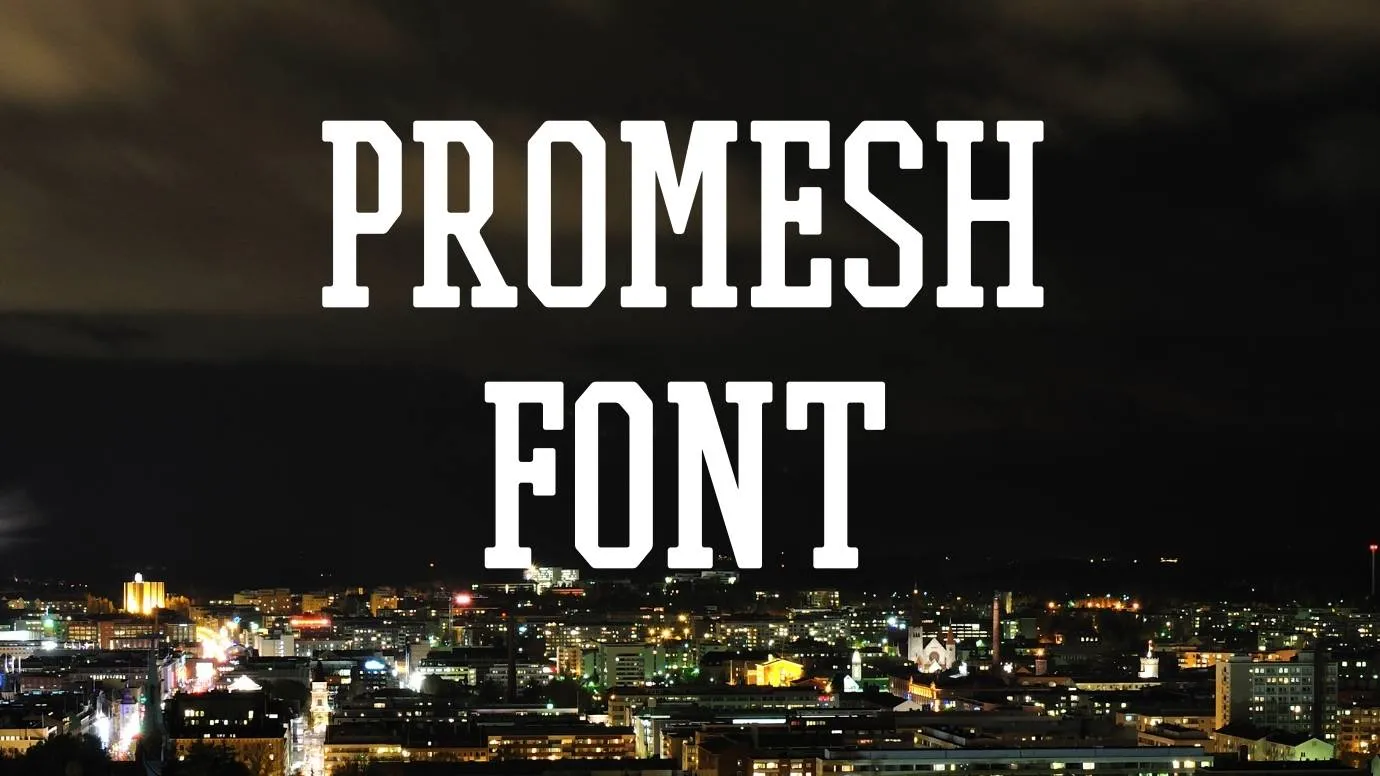
Promesh Font Family is a stunning typeface belongs to the display typeface. The main designer of this typeface was Paul Reis. This typeface was firstly released on October 24, 2014.
The designer of this typeface makes it with multiple Crafty styles. If you are a web or graphic designer, then you must know the importance of choosing this beautiful typeface.
Promesh Font